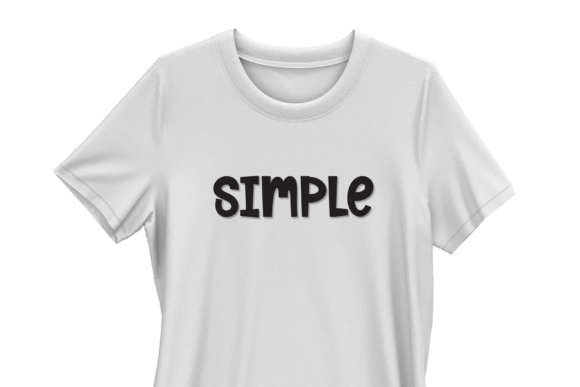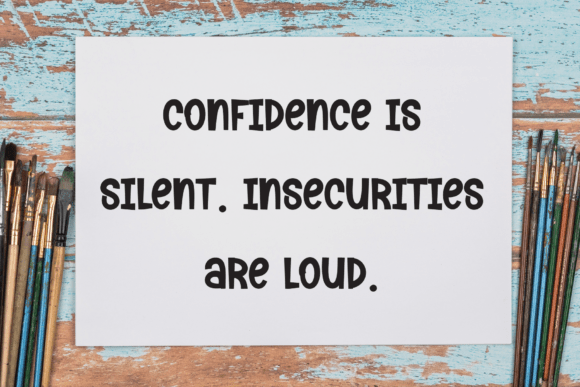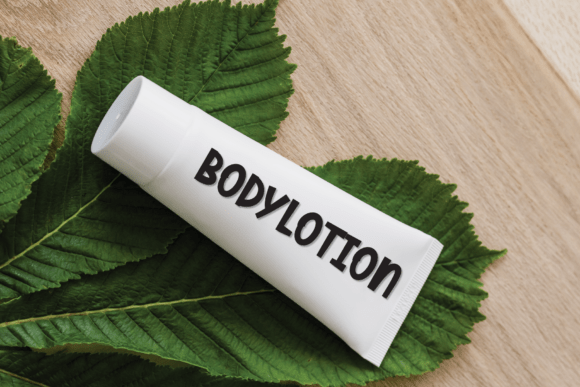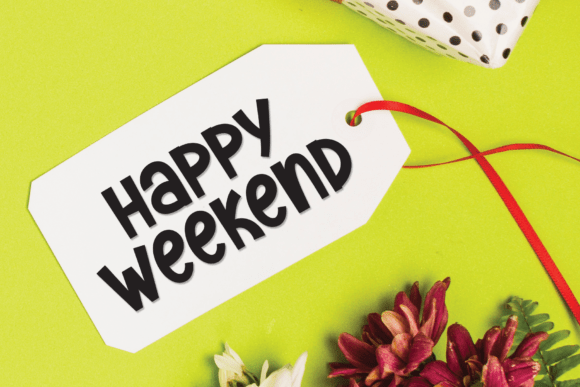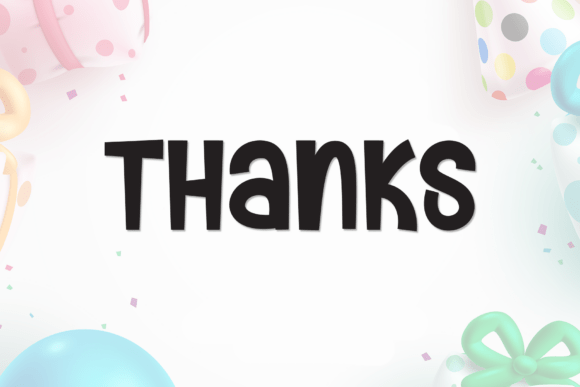
Birthday Remember Font: Celebrate Every Milestone with Joy and Excitement
Are you looking for a font that can add a touch of celebration to your designs? Look no further than the Birthday Remember Font, a modern display typeface that radiates joy and excitement. This font is specifically designed to bring a sense of occasion to your work, making every word feel like a celebration.
Unique Characteristics of Birthday Remember Font
The Birthday Remember typeface features tall, slightly off-kilter characters that create a festive, hand-cut paper feel. This unique design gives the font a playful and whimsical touch, making it perfect for designs that require a sense of fun and excitement. The font’s characters are carefully crafted to create a sense of movement and energy, drawing the viewer’s attention to the text.
Ideal Uses for Birthday Remember Font
The Birthday Remember font is the go-to choice for party invitations, festive event signage, and cheerful social media templates. Its celebratory feel makes it perfect for designs that require a sense of joy and excitement. Whether you’re designing for a first birthday, a grand opening, or any other milestone event, this font ensures your message is remembered as much as the event itself.
Beyond Celebrations: Using Birthday Remember Font in Other Designs
While the Birthday Remember font is ideal for celebratory designs, its unique proportions make it suitable for a wide range of other applications. Add a touch of whimsy to bakery menus, candy packaging, and nursery decor with this font. Its playful feel can also be used in designs for children’s books, educational materials, and even branding for businesses that want to convey a sense of fun and excitement.
Tips for Using Birthday Remember Font
To get the most out of the Birthday Remember font, pair it with colorful confetti graphics and bright gradients to fully lean into its celebratory DNA. This will help create a cohesive and festive design that grabs the viewer’s attention. You can also experiment with different font sizes, colors, and textures to add depth and interest to your design.
Why Designers and Crafters Love Birthday Remember Font
Designers and crafters love the Birthday Remember font for its unique and playful design. It’s a versatile font that can be used in a wide range of applications, from celebratory designs to more everyday projects. The font’s whimsical feel and festive energy make it perfect for designers who want to add a touch of fun and excitement to their work.
In conclusion, the Birthday Remember Font is a modern display typeface that radiates joy and excitement. Its unique characteristics, ideal uses, and technical details make it a go-to choice for designers and crafters who want to add a touch of celebration to their work. Whether you’re designing for a milestone event or just want to add some whimsy to your designs, this font is sure to deliver.